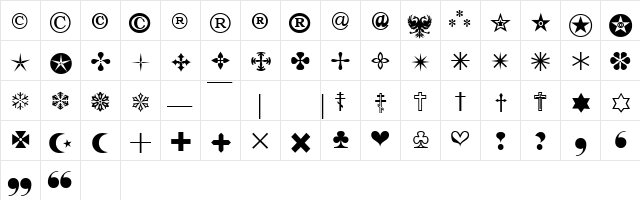
PigraphBTT Regular
Design Context for PigraphBTT Typeface
PigraphBTT is a composed and adaptable typeface that performs quietly and consistently across a wide range of design contexts.